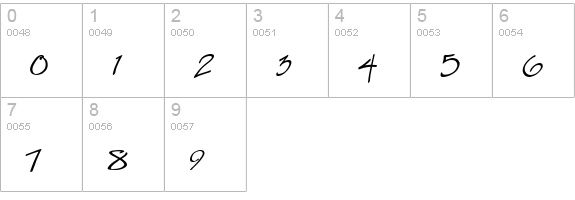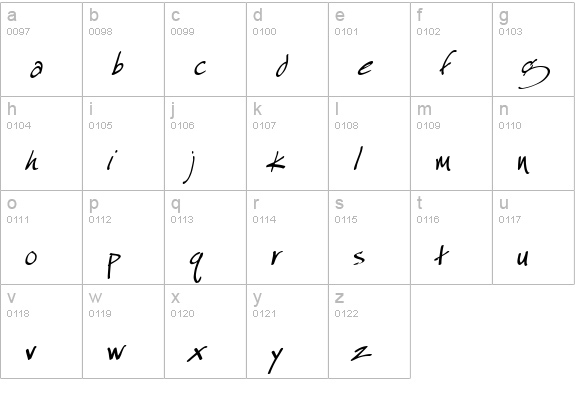
Especial Kay Font Details
Especial Kay font is a stunning display typeface that exudes elegance and sophistication. With its unique and intricate design, Especial Kay is sure to make any design project stand out. The flowing curves and intricate details of this font give it a sense of luxury and charm. What makes Especial Kay font even more special is that it is available for free download at FontsMarket.com. This means that you can easily incorporate this beautiful font into your projects without any additional cost. Whether you're designing a wedding invitation, a logo, or a poster, Especial Kay font is the perfect choice to add a touch of class and style. Don't miss out on the opportunity to enhance your designs with this exquisite font. Download Especial Kay for free today and elevate your projects to a whole new level of sophistication.